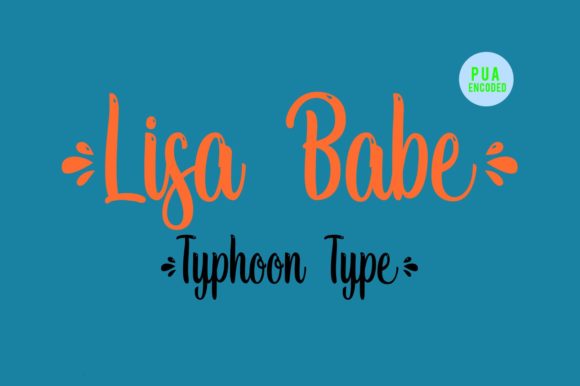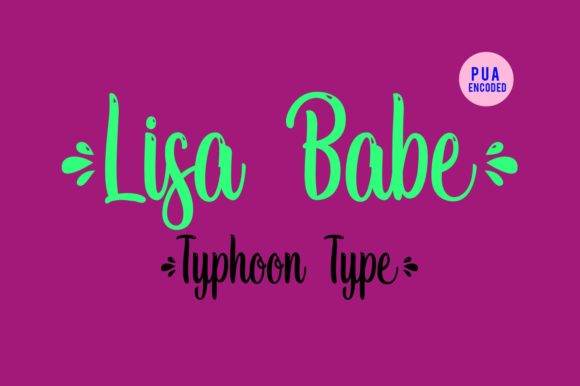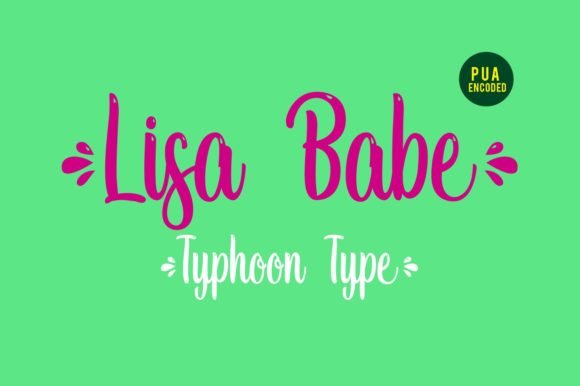
Introduction to Lisa Babe Font
Lisa Babe is a cute handwritten font.
Its sweet and full of life style makes this font a wonderful choice for brightening up your designs Fall in love with its incredibly versatile style and use it to create spectacular designs.
Key Features of Lisa Babe Font